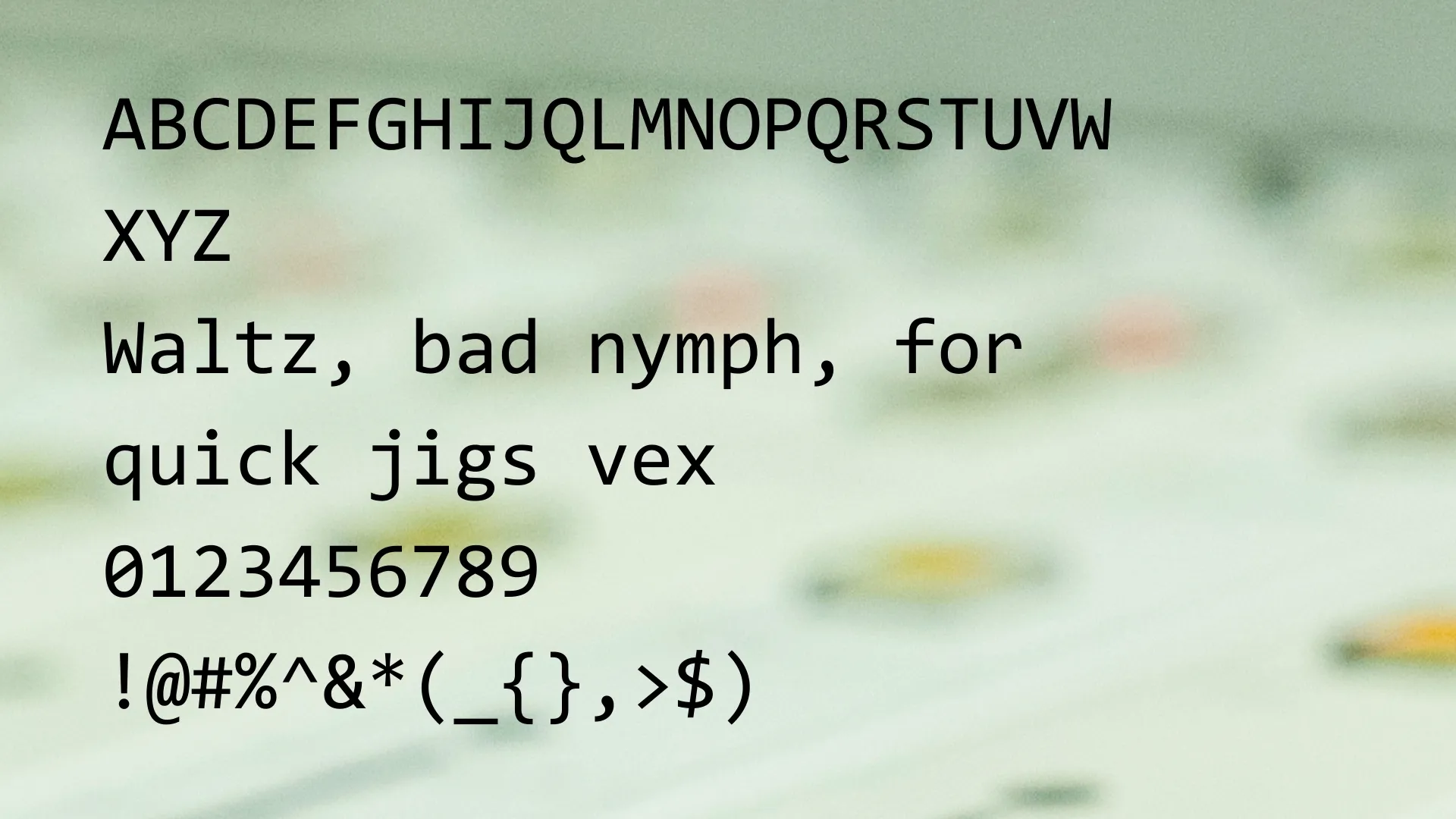
Consolas Font has a clean and elegant texture appearance that can be utilized in any kind of design and project. It has thin and defined texture visualizations. It is the monospaced type font that belongs to the Sans-Serif Font Family. This font style is compatible with both large and small sizes screen displays. This textured style can also be called an interface-type font. So, this font style is also perfect to utilize in the device’s interface displays. It can be also utilized as the texture content in-browser apps as it contains readable and defined texture content. This font style can also be best for printing purposes.
This typeface has the most similarities with the Arial and Calibri Fonts. So, this font style can also be the alternative to these two font styles. This font style is also a part of the Clear type font collections. This font style has been utilized in Windows since Windows Vista, Microsoft Office 2007, and Microsoft Visual Studio 2010, and is a part of the collection Microsoft that can be easily downloaded. This typeface is the basic Windows Vista typeface. This textured style font is the default font of the Microsoft Notepad as of Windows 8. This font family is also listed among the font libraries of Google and Adobe.
This font style is also utilized for creating amazing designs in Canva, a graphic designing software. This font style has also been used to create different designs in CSS (Cascading Style Sheet) and Adobe Photoshop. This font style is also utilized in creating posters, banners, T-shirt designs, Pana flex, birthday wishes cards, invitation cards, shops names, etc. This bold texture style in its family is also used for designing purposes and creating magazines, signposting, labeling brands, etc. Youtubers are also using this font style for creating the thumbnails for their channels that attract the attention of users.
Designer of Consolas Font
This amazing and clean texture style has been designed by Luc de Groot and since the day it was released this font style has become the collection of Clear Type Font Collection. He has also designed many of the famous typefaces that are popular all over the globe.
This textured style has been created with a family of its own with different styles. Every single style in this family of this font features includes uppercase letters, lowercase letters, glyphs, punctuation, digits, symbols, and special characters are all included in this family of styles, as well as language support. These styles are mentioned below: –
- Consolas Regular
- Consolas Bold
- Consolas Bold Italic
- Consolas Italic
View of Consolas Font
| Designer | Luc de Groot |
| Foundry | Microsoft |
It can support up to 104 languages.
Is Consolas a good font?
This font style has a clean and keen texture appearance that can be utilized in almost any kind of usage. So, yes this font style is a good font.
What font is similar to Consolas font?
There are a number of fonts that are similar to this font style. But we have noticed that the Avenir Font has the most similar features to this font style.
Who designed Consolas Font?
This amazing and clean texture style has been designed by Luc de Groot and since the day it was released this font style has become the collection of Clear Type Font Collection.